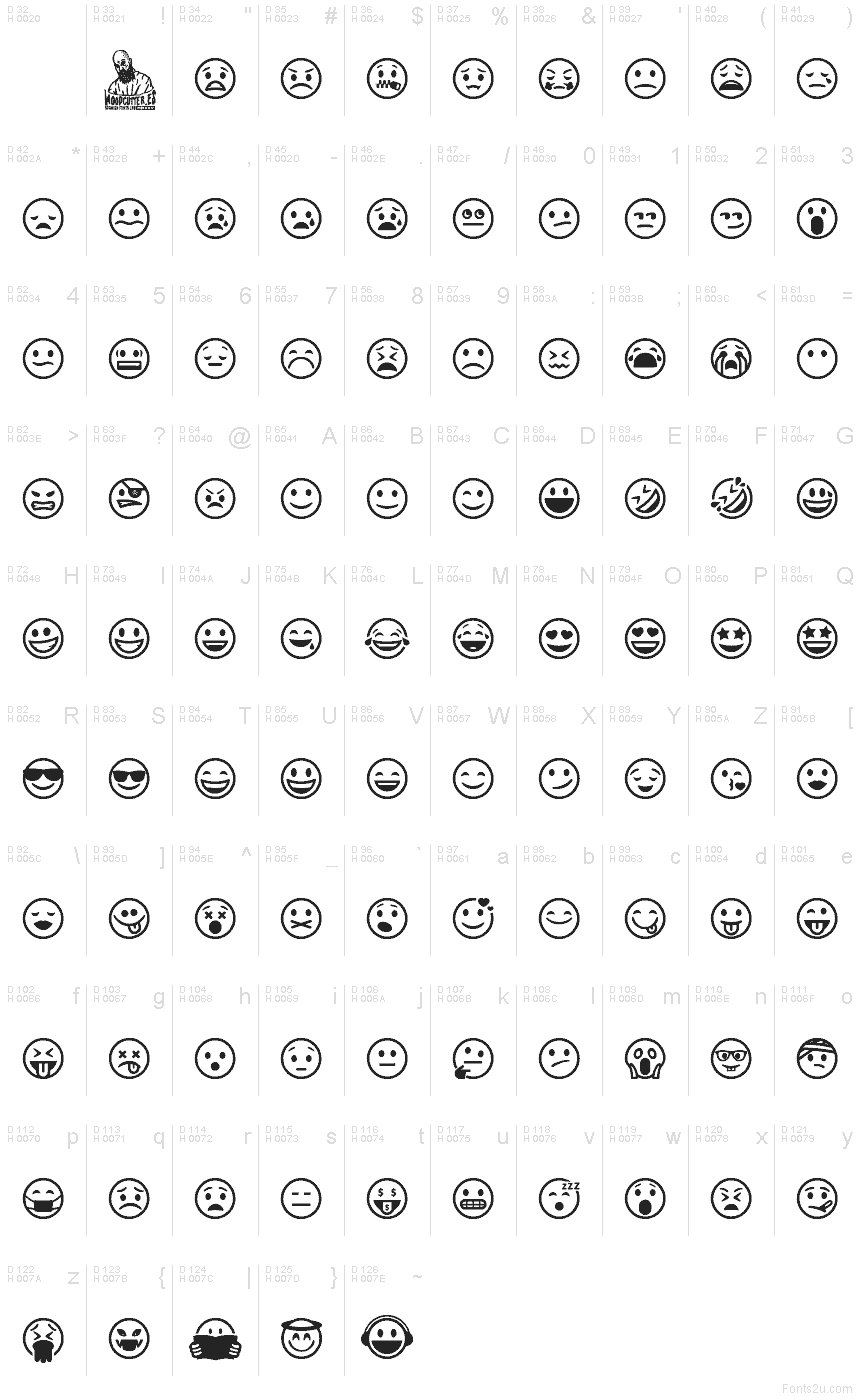
Smiley Mix
Smiley Mix font from Woodcutter is a free cartoon humorous minimalist dingbats typeface with a friendly and approachable look. The type offers funny-designed rounded faces, each of which shows a different emotional expressions: sadness, crying, laughter, boredom, and more.
These emojis are nice for use in designing social media posts or emojis. Use them to give your projects such as posters and stationery an entertaining eye-catching edge likewise to engage your audience.